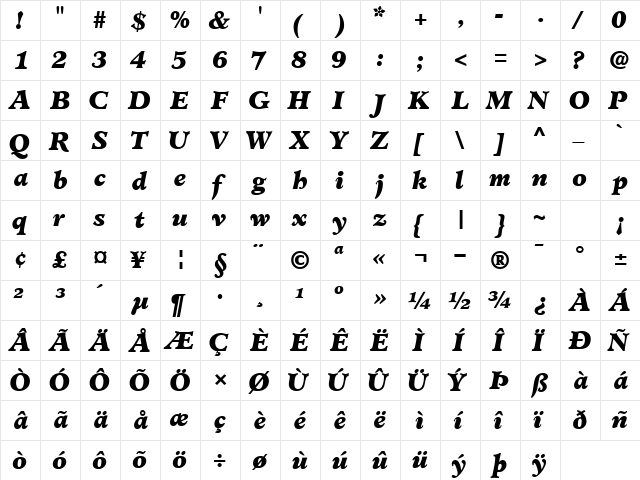
ClericBlackSSK Italic Font Preview
ClericBlackSSK Italic
ClericBlackSSK Italic Font Details
Design Context for ClericBlackSSK Typeface
ClericBlackSSK is a composed and adaptable typeface that performs quietly and consistently across a wide range of design contexts. The slanted form adds forward momentum and visual energy.
Pro Tip: Try ClericBlackSSK for annotation and caption copy alongside an upright companion — the contrast in angle creates a dynamic but ordered typographic system.